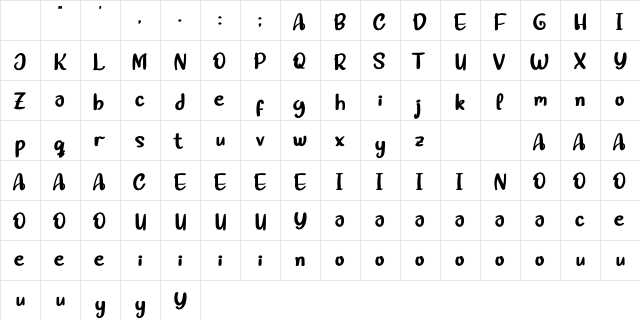
Complete Quick Camping Personal Use glyph index. Displaying only characters natively supported by Quick Camping Personal Use font.
Quick Camping is a composed and adaptable typeface that performs quietly and consistently across a wide range of design contexts.